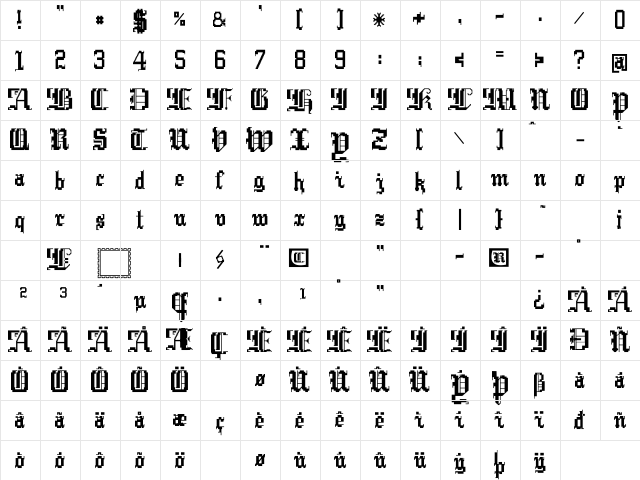
Argor Cwar Scaqh Regular
Design Context for Argor Cwar Scaqh
Argor Cwar Scaqh is a composed and adaptable typeface that performs quietly and consistently across a wide range of design contexts.